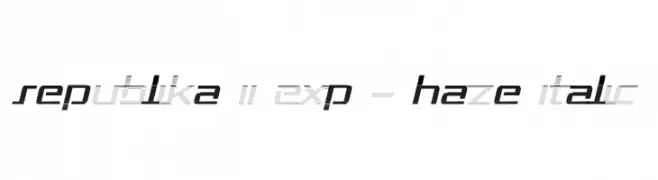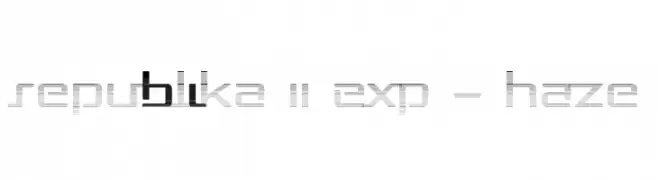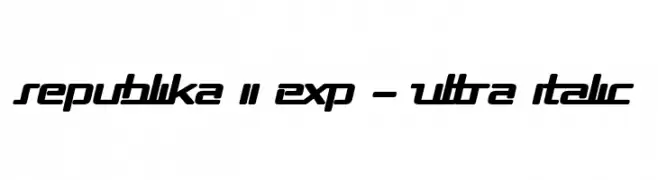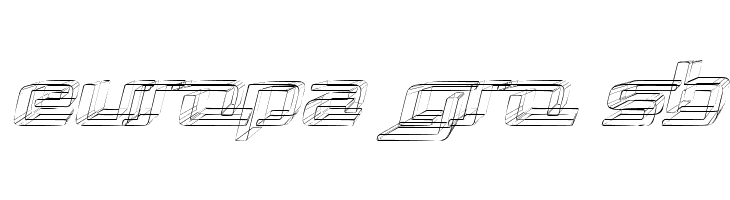
A bold, italicized font with a shattered effect, ideal for dynamic and modern designs.
A sketch-like, three-dimensional font with a modern, geometric design.
A sketch-style, condensed italic font with a hand-drawn effect.
A bold, geometric font with a futuristic and modern aesthetic.
A bold, ultra-condensed italic font with geometric shapes and dynamic style.
A bold, geometric font with a futuristic and industrial style.
A bold, italicized, and condensed font with a futuristic geometric style.
A modern, geometric, condensed italic font with a futuristic style.
A futuristic, geometric font with consistent stroke width and sharp edges.
A futuristic, geometric font with a dynamic, digital aesthetic.
A futuristic italic font with sharp angles and a sleek, modern design.
A futuristic, geometric font with angular lines and a tech-inspired design.
A futuristic, geometric font with italicized, angular letterforms and tight spacing.
A dynamic font with a shattered glass effect and angular, fragmented shapes.
A shattered, italicized font with a modern, dynamic style.
A sketch-style, three-dimensional font with geometric lines and a modern aesthetic.
A futuristic, sketch-style italic font with angular and overlapping lines.
A bold, geometric font with a futuristic and digital style.
A bold, italic, futuristic font with geometric shapes and a dynamic slant.
A bold, geometric font with a futuristic and technical design.
A bold, italic, futuristic font with angular, interconnected characters.
A futuristic, italicized font with angular, geometric characters and a sleek design.
A modern, italic font with geometric, angular design and consistent character height.
A modern, geometric font with clean lines and uniform stroke width.
A bold, outlined font with a modern, sporty aesthetic and geometric structure.
A bold, italicized font with an outlined, collegiate style.
A futuristic, segmented font with a digital, linear design.
A modern, italic font with a striped, futuristic design and high contrast.
A modern, geometric font with rounded edges and consistent character width.
A sleek, modern, light italic font with geometric shapes and low contrast.
A bold, maze-like font with a modern, geometric style.
A bold, decorative font with a maze-like, three-dimensional outline and italic slant.
A bold, geometric outline font with a modern, futuristic style.
A modern, outlined italic font with a geometric and futuristic style.
A bold, modern font with a shadow effect, ideal for striking headlines.